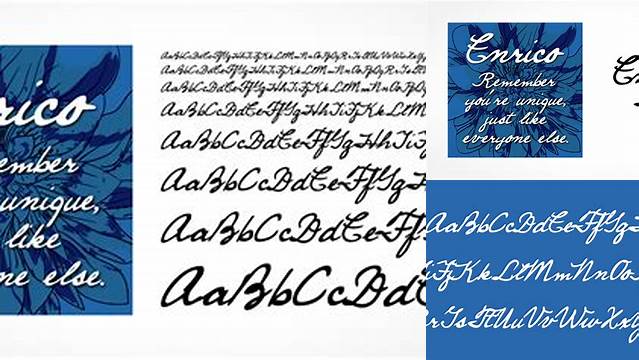
Alright, guys! Let's dive into the world of the Enrico Handwriting Font Free! If you're anything like me, you're always on the hunt for that perfect font to spice up your designs, documents, or even just your personal projects. The Enrico font, with its charming handwritten style, is a fantastic option. And the best part? You can snag it for free! This guide will walk you through everything you need to know about the Enrico Handwriting Font, from where to download it safely and how to install it, to how to best use it in your various projects. We'll also explore some of the amazing features and versatility that this font brings to the table. So, buckle up, because we're about to embark on a font-tastic adventure! Understanding the nuances of typography can significantly enhance the visual impact of your work, and choosing the right font is the cornerstone of effective design. Let's get started with why the Enrico Handwriting Font could be the perfect addition to your font collection, and how to get your hands on it without spending a dime.
Using Enrico Handwriting Font in Your Designs: Creative Ideas
Alright, let's get creative! The Enrico Handwriting Font Free is super versatile, which makes it perfect for a wide range of design projects. First off, it's excellent for creating a personal touch in invitations, greeting cards, and thank-you notes. Think about it: a handwritten-style font immediately adds a warm, human element to your designs. It’s also fantastic for creating stylish logos and branding materials for businesses. Consider using it for taglines or headings to inject personality into your brand. It's an excellent choice for social media graphics, blog posts, and website headers to make your content stand out. You can use it for creating engaging presentations, adding a friendly and approachable feel. For a more professional touch, you could incorporate the font into digital signatures or watermarks on your documents. Don’t forget its potential in scrapbooking or journaling; it adds a fun, personal aesthetic. Don’t be afraid to play around with different font sizes, weights, and colors to achieve unique effects. Using the Enrico Handwriting Font can transform your designs and make them more visually appealing. Unleash your creativity and experiment with different combinations to discover the perfect look for your project. The sky's the limit!
Enhancing Invitations and Cards with the Font
Enriching invitations and cards using the Enrico Handwriting Font Free is a fantastic way to add a personal and artistic flair, making them stand out. Imagine crafting wedding invitations with elegantly scripted names, dates, and locations; the handwritten style lends a romantic and intimate touch. For birthday cards, the Enrico font can bring a joyful and playful vibe. Using it for the recipient's name and a special message will make the card feel more unique and heartfelt. Corporate event invitations can benefit from the font by making them less formal and more approachable, particularly when used for the details of the event or a personal note from the organizers. You can combine the Enrico font with other design elements, like watercolor backgrounds, decorative borders, or charming illustrations, to create visually stunning cards. Think about the paper stock and the printing method. Using high-quality paper and a professional printing technique will ensure your invitations have a sophisticated and premium look. For holiday cards, the font can add a warm, festive touch, making your messages more special. Remember, the right font choice can set the tone for the event, creating anticipation and excitement. The Enrico Handwriting Font allows you to design memorable invitations and cards with a truly personalized touch. Use it to create unique invitations, and the recipients are sure to feel cherished and appreciated!
Branding Your Business With A Personal Touch
Branding your business is all about establishing a unique identity, and the Enrico Handwriting Font Free can be a powerful tool in this process. Using the font in your logo can convey approachability, creativity, and a human touch. For small businesses or startups, a handwritten logo design can make you stand out from the more corporate-looking brands. Consider using the font for taglines or slogans to create a memorable brand message. Incorporate the font into your website's design, especially in headings, to give your site a consistent and visually appealing aesthetic. Make sure the font reflects your brand’s personality and target audience. Experiment with different weights and sizes to ensure readability and visual appeal. Using the font in your business cards can create a distinctive first impression. Consistency is key, so apply the font across all of your marketing materials to build brand recognition. However, be cautious about using the font for large blocks of text, as it can impact readability. Balance its usage with other fonts and design elements to create a harmonious look. The versatility of the font makes it a fantastic asset for businesses looking to create a unique brand identity. By thoughtfully incorporating it into your branding efforts, you can build stronger connections with your audience.
Social Media Graphics and Blog Post Headings
Elevating your social media graphics and blog post headings with the Enrico Handwriting Font Free is a superb way to grab attention and boost engagement. In the fast-paced world of social media, it is vital to capture your audience's interest instantly. Using the Enrico font in eye-catching headlines can dramatically improve your post's visibility. Design visually appealing quote cards, captions, or short messages using the font to make them shareable. Use this font for your blog post titles and subheadings to add a personal touch and enhance readability. You can combine it with images, illustrations, or other graphic elements to create visually appealing content. Ensure the font complements your brand's visual style. For your social media profiles, use the font in your bio or profile descriptions to showcase your unique brand personality. Vary the font size and weight to create visual hierarchy and guide your audience’s eyes to the most important information. In your blog posts, the font can be used for pull quotes, which are short, impactful sentences highlighted in a larger font to grab attention. Consistency in your visual identity is crucial. Make sure the font is used consistently across all your social media channels and blog posts for brand recognition. Take advantage of online design tools like Canva or Adobe Spark to easily create attractive graphics and headings using the font. This approach can significantly elevate your brand presence online.
Font Features and Versatility: What Makes Enrico Special?
The Enrico Handwriting Font Free isn't just any old font; it's got some special features that make it stand out. Firstly, it's designed to mimic real handwriting, providing a natural and human feel. This makes it perfect for projects where you want to create a personal touch. Its versatility allows it to be used in a wide range of contexts, from personal projects to professional designs. It’s also very readable, especially in headings and short texts, which is crucial for effective communication. The font usually includes a variety of characters, including uppercase, lowercase letters, numbers, and punctuation marks, ensuring you have all the tools you need for your projects. The availability of this font for free makes it accessible to everyone, regardless of budget. It’s compatible with a variety of software and operating systems, so you can use it on pretty much any device. It is a great choice for creating a wide range of designs, adding charm and personality to your work. The font's unique character makes it perfect for adding a human touch, adding a warm, friendly aesthetic to your work, making it perfect for conveying creativity and approachability. The font helps enhance your projects, making them appealing and engaging.
Character Set and Glyphs Exploration
Exploring the character set and glyphs of the Enrico Handwriting Font Free unveils its versatility. The font typically encompasses a comprehensive set of characters, including uppercase and lowercase alphabets. Additionally, it generally features a full complement of numbers and punctuation marks. This extensive set makes it suitable for a broad spectrum of design projects. The different glyphs, such as ligatures and alternate characters, add unique flair to your projects. Ligatures are special character combinations where two or more characters are joined to improve the flow of your text and create visual harmony. Alternate characters offer variations of letters, allowing you to customize the font to fit your specific aesthetic. These unique glyphs give a more natural and authentic handwriting appearance. Examining the font's glyphs in detail helps in choosing the perfect character combinations. You can access the glyphs through most design software. Understanding the intricacies of the font's character set lets you create polished and visually engaging designs. Experimenting with ligatures and alternate characters can transform the visual appeal of your work, enhancing its overall impact. Therefore, familiarity with the character set enhances your design capabilities.
The Role of Free Fonts in the Design Ecosystem
Free fonts like the Enrico Handwriting Font Free play a crucial role in the design ecosystem. They provide designers and creatives with free access to an extensive library of design resources. They can be easily implemented for various projects, promoting creativity and experimentation. They help level the playing field, so that anyone with a computer and internet connection can create visual content. This is particularly helpful for those who have limited budgets. Free fonts encourage designers to enhance their design skills. They give independent designers and small businesses access to great fonts that help establish their brand. Free fonts also support various design projects, helping enhance communications across different media. By expanding the availability and accessibility of fonts, free fonts play a role in the broader design ecosystem.